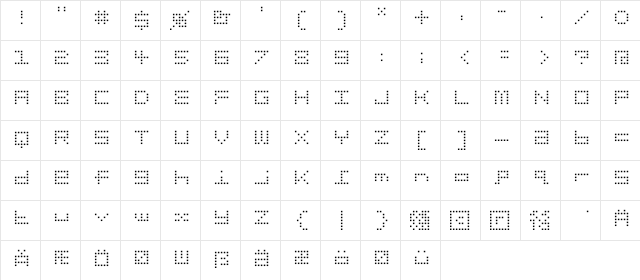
Gridder POS
Design Context for Gridder Typeface
Gridder takes a measured approach to typography — its balanced proportions and neutral character make it a reliable workhorse for both digital and print work.